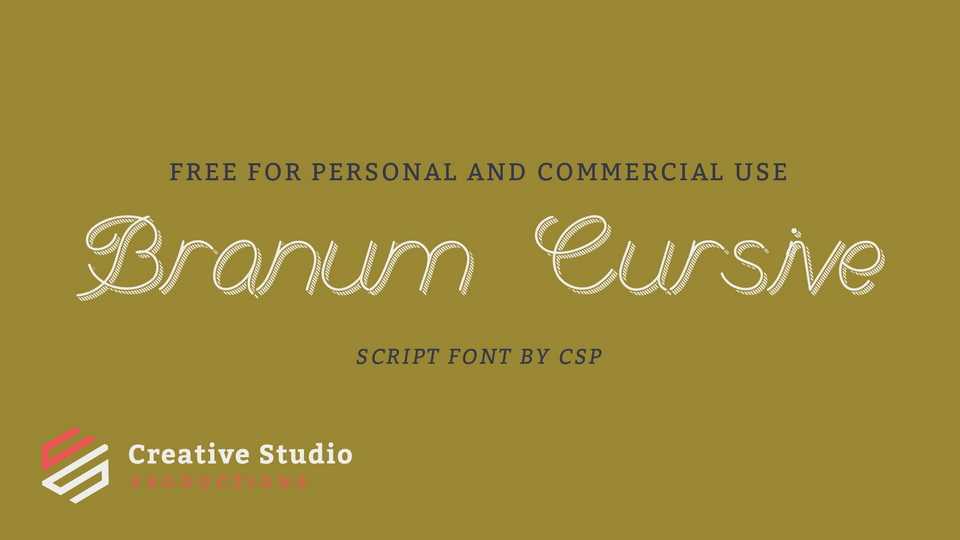
Download Branum Cursive font, a monoline handwritten font inspired by retro lettering. With its handcrafted feel and natural touch Branum Cursive font is perfect for crafts, cards, menus, packaging, etc.
Designer: Ben Branum